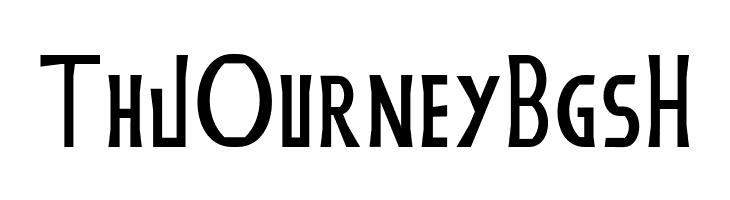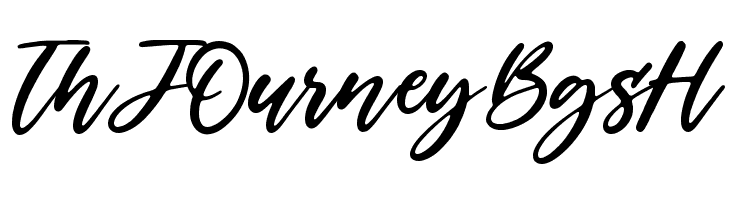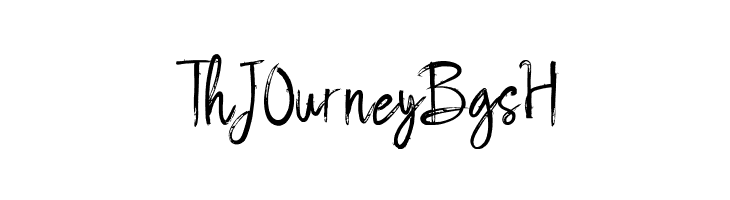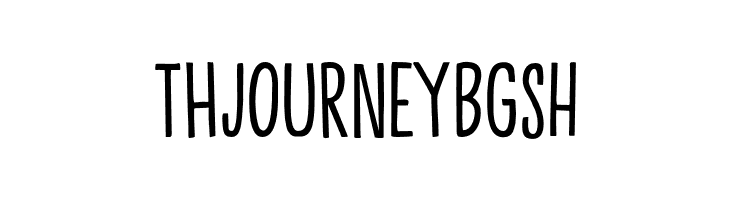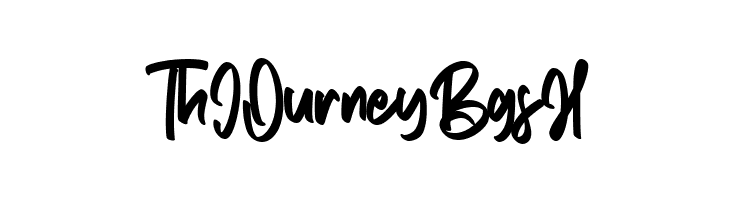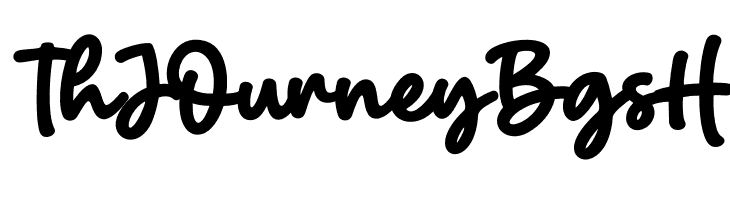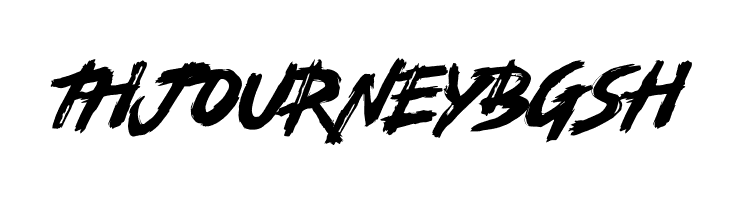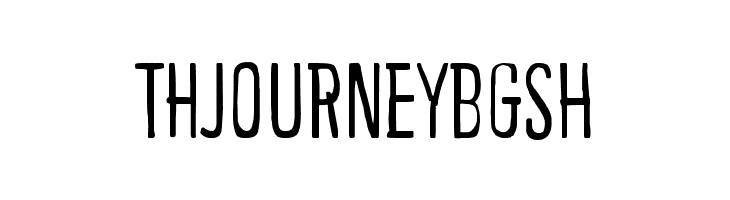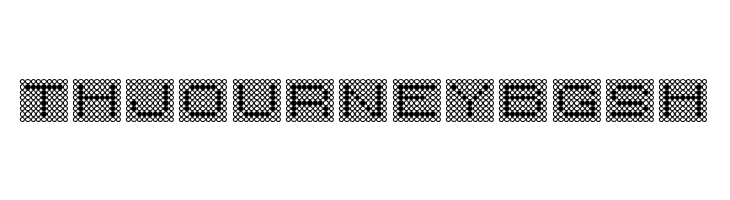
A dynamic, expressive handwritten font with a brush-like texture.
A bold, brush-style font with dynamic, hand-drawn strokes.
A bold, expressive handwritten font with fluid strokes.
A bold, decorative font with a grid pattern and square outlines.
A bold, hand-drawn font with a slightly condensed style and artistic flair.
A tall, narrow, hand-drawn style font with a playful and modern aesthetic.
A dynamic and flowing script font with elegant, cursive letterforms.
A bold, expressive handwritten font with fluid strokes and a playful style.
A bold, angular font with a modern and artistic style.